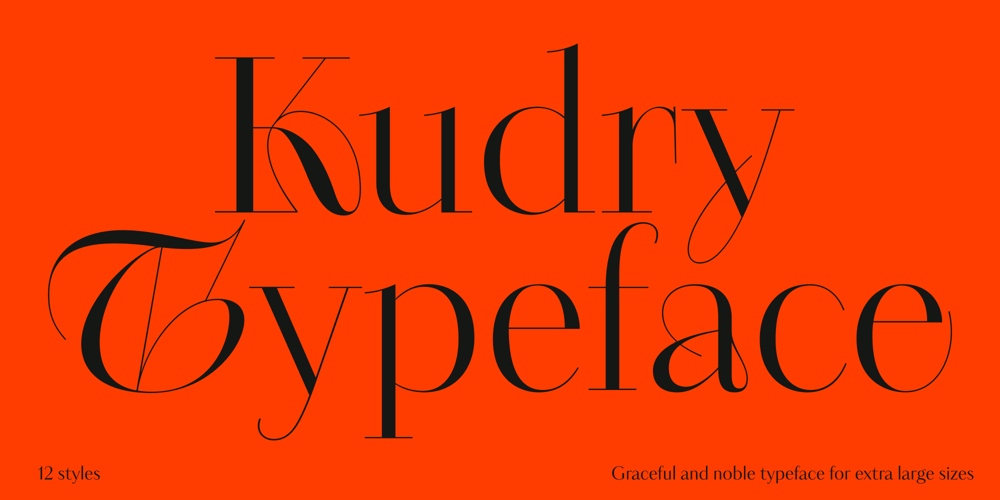
Kudry Font Family was designed by Isabella Chaeva, Alexandra Korolkova, Nikolay Nedashkovsky and published by ParaType. Kudry contains 12 styles and family package options. Kudry is an elegant and noble typeface for extra large sizes. It looks good in cultural projects and exhibitions, logos, book covers, theater posters, wedding invitations, cosmetic and cake packaging,— basically any case in need of a beautiful typeface. It is a type family that consists of the modern serif and the contrasting sans serif, the weird serif and the stencil type. Both serif and sans have three options for different point sizes: Display for extra large sizes (from 72 pt or 96 px), Headline for large sizes (from 36 pt or 48 px) and Text for medium sizes (from 14 pt or from 24 px). Each style has a variety of alternate characters, swashes and ligatures, linear and old style figures, arrows and case-sensitive punctuation. The typeface supports major all European Latin and Cyrillic-based languages and all European Latin scripts. The character design of Kudry, details of the letters and alternates are an original contemporary solution based on the proportions and construction of the sans serif by N. N. Kudryashev. Digital versions of this typeface are Kudryashev and Petersburg, which can work in pair with Kudry in case you need a combination of a text serif and a display typeface. ITC Franklin Gothic, PT Root or Ida suit well as a paired text sans serif.Need web font files with TrueType hinting? Just email us at info@paratype.net—we’ll be happy to send them your way!